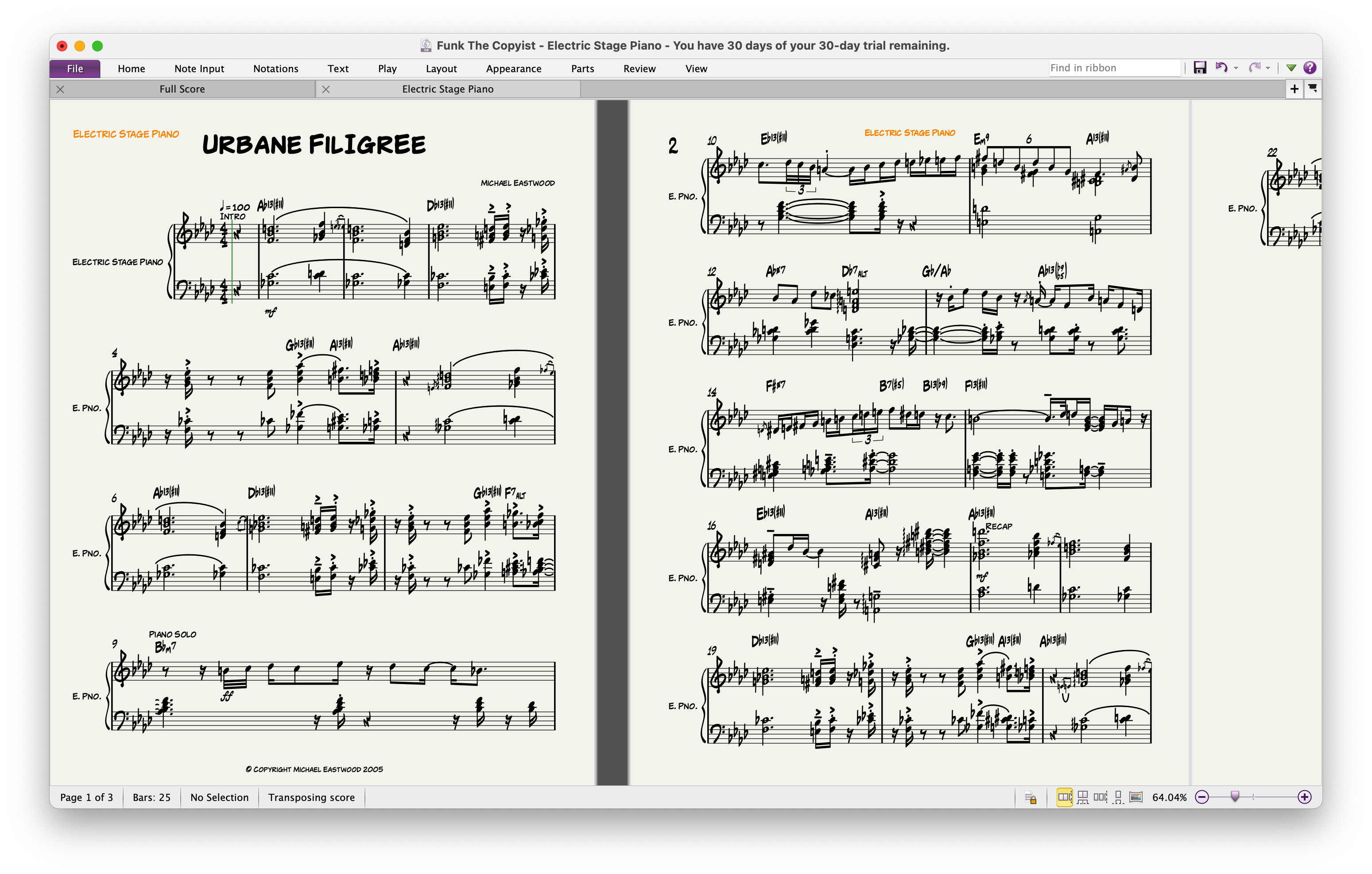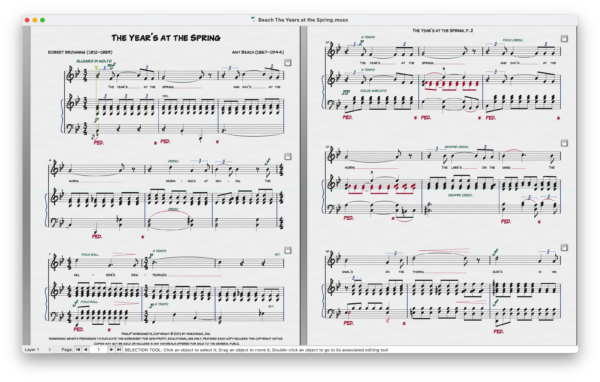
The Copyist is handwritten music and text font for Finale & Sibelius with lots of personality. Nothing else will get you as close to the look and feel of the classic Broadway scores à la Bert Kosow Style.